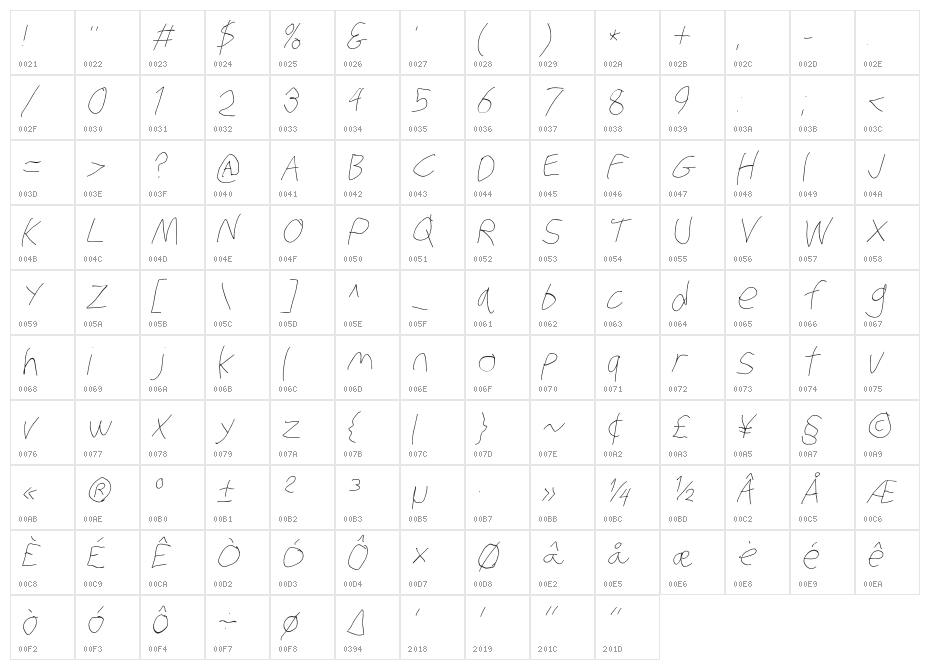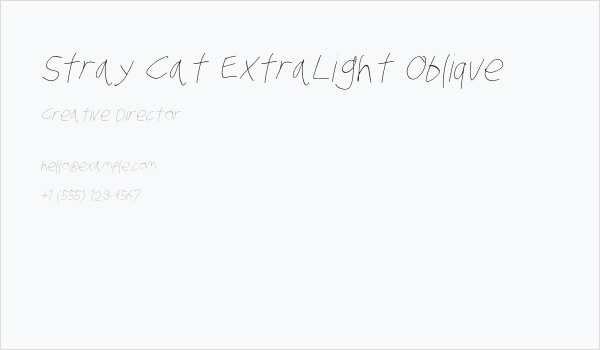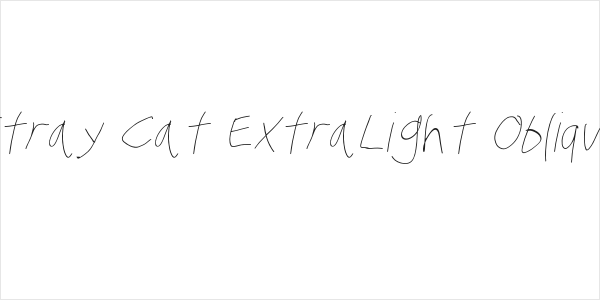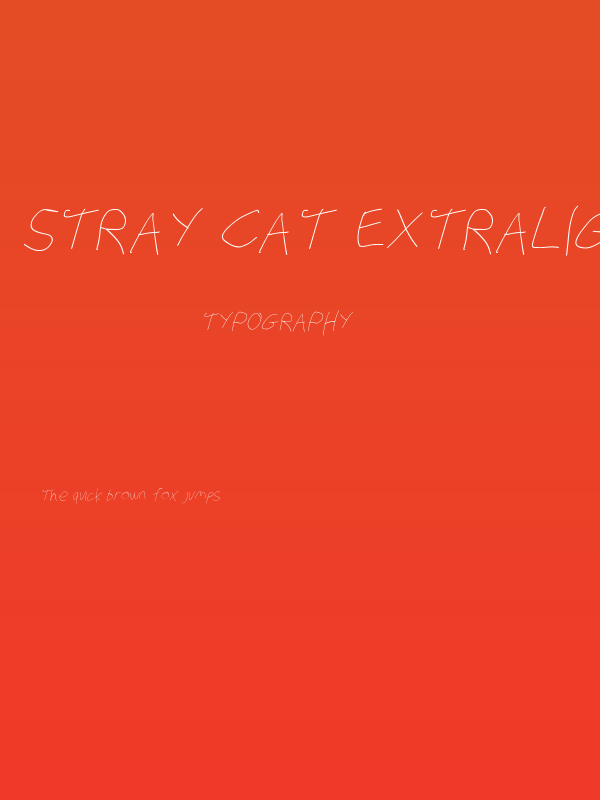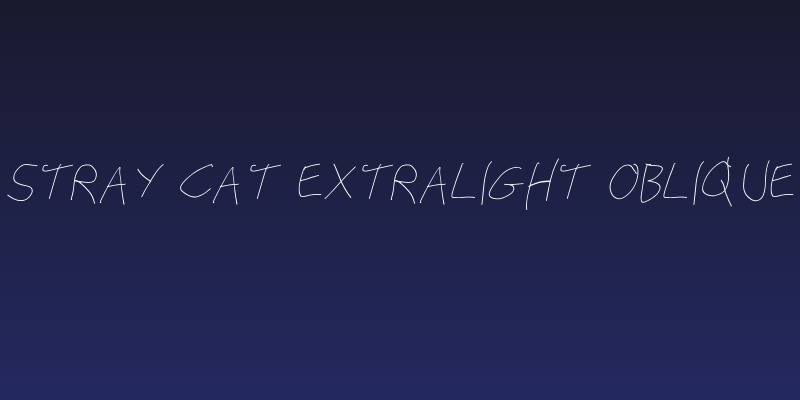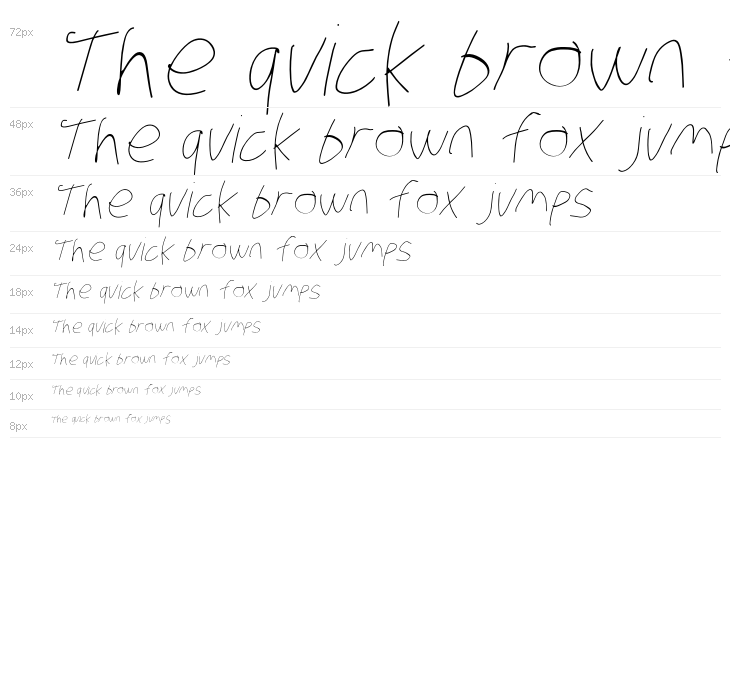
Stray Cat ExtraLight Oblique Font
Stray Cat ExtraLight Oblique Description
This font exhibits a playful and casual handwritten style, characterized by its light and airy strokes. The letters are slightly slanted, giving an oblique appearance that adds a dynamic feel to the text. The strokes are thin and consistent, contributing to an overall delicate and elegant look. The characters maintain a uniform height, with a slight variation in width that enhances the handwritten aesthetic. The spacing between characters is relatively loose, allowing for easy readability. This font's unique style makes it suitable for informal and creative projects.
| Use Case | Creative projects, informal text, personal notes. |
| Proposed Projects | Ideal for greeting cards, personal notes, creative posters, and casual branding. |